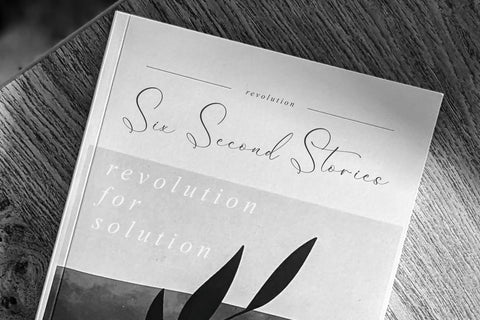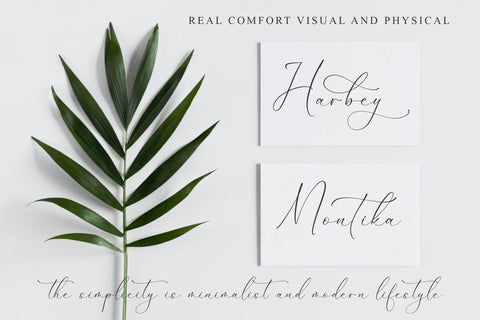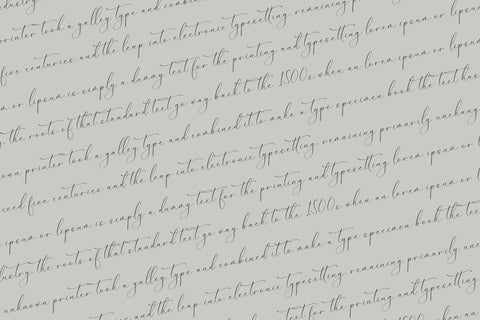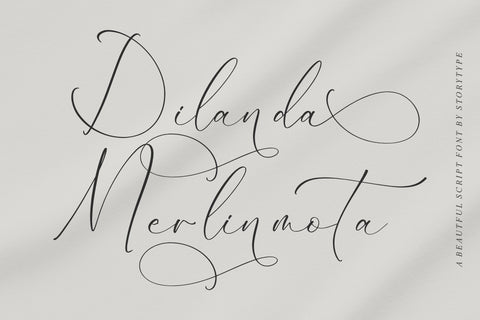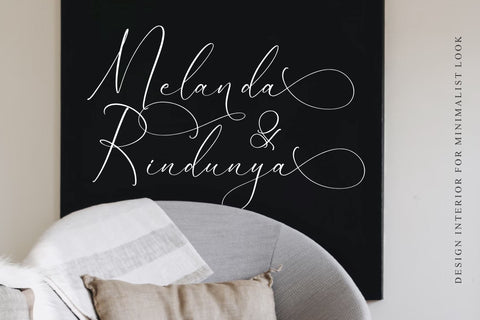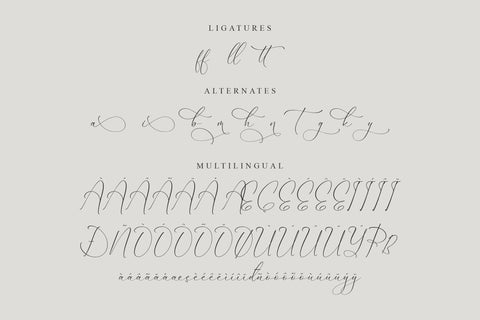
Dilanda Merlinmota - Beautiful Script Font
Proudly present Dilanda Merlinmota - Beautiful Script Font , created by Storytype,
A luxury script that has own unique style & modern look.